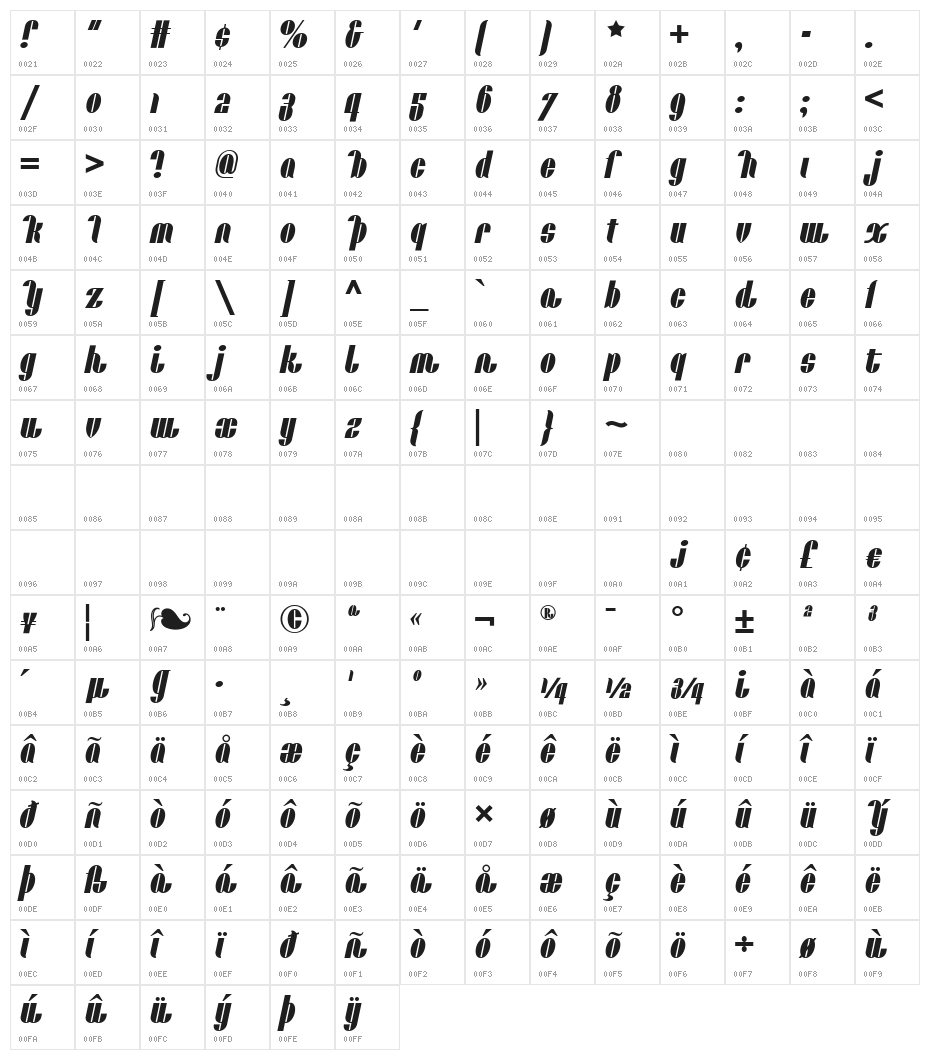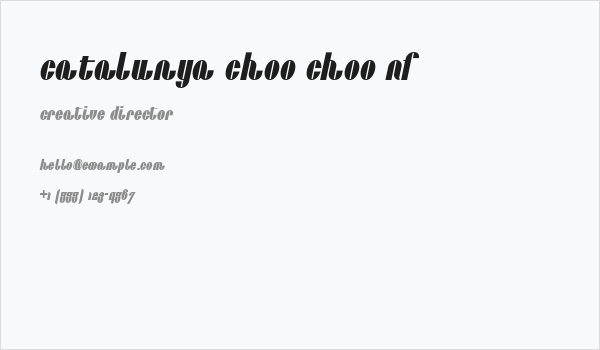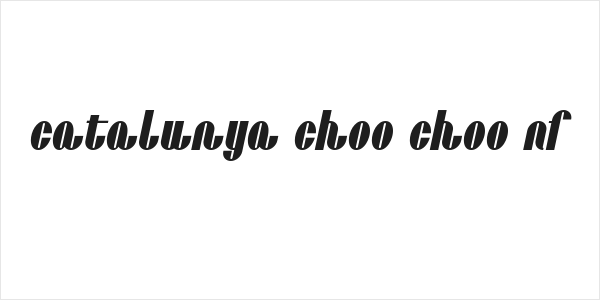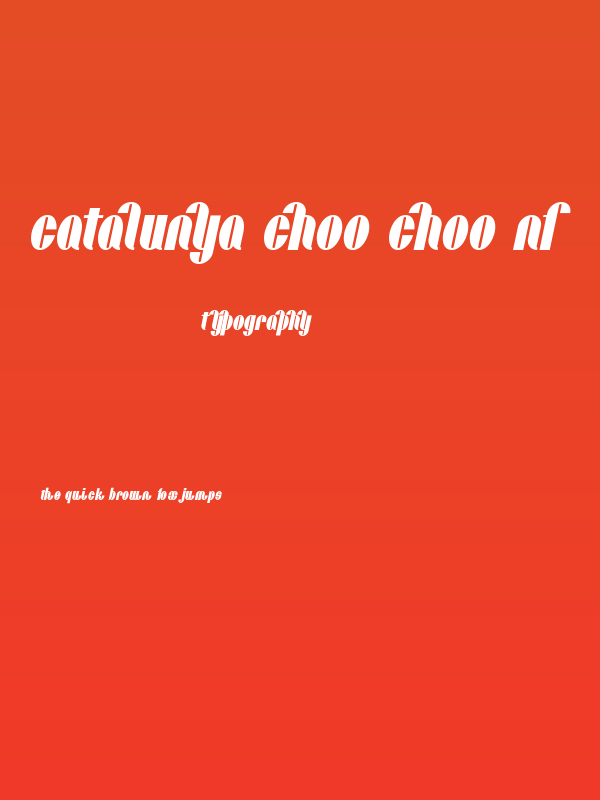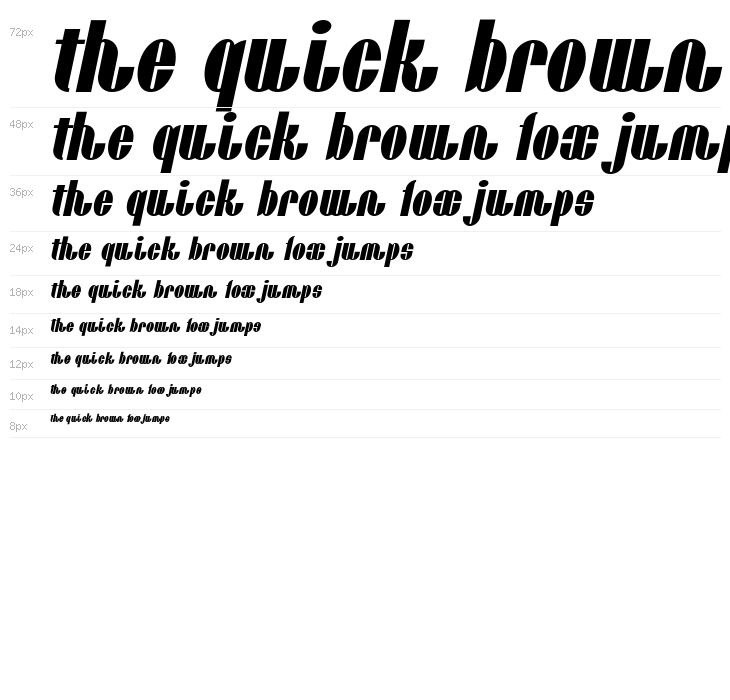
Catalunya Choo Choo NF Font
Catalunya Choo Choo NF Description
This font features a bold and dynamic style with a strong presence. The characters are designed with a high contrast between thick and thin strokes, giving it a dramatic and eye-catching appearance. The letters have a unique, slightly slanted orientation, adding a sense of movement and energy. The overall design is reminiscent of vintage signage, with a modern twist that makes it suitable for contemporary applications. The uppercase and lowercase letters maintain a consistent style, while the numerals and special characters are crafted to match the bold aesthetic. This font is perfect for making a statement in any design project.
| Overall Style | Vintage, Modern |
| Proposed Projects | Ideal for posters, branding, headlines, and any project requiring a striking visual impact. |